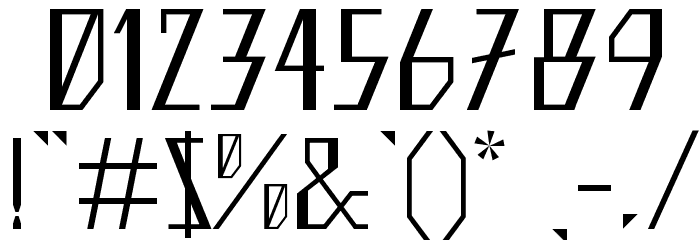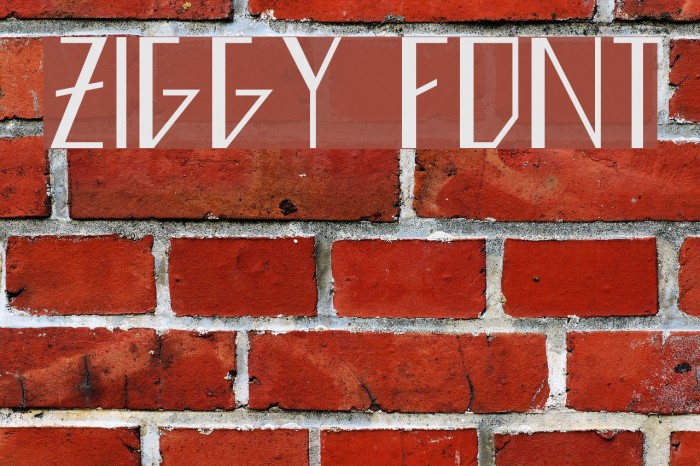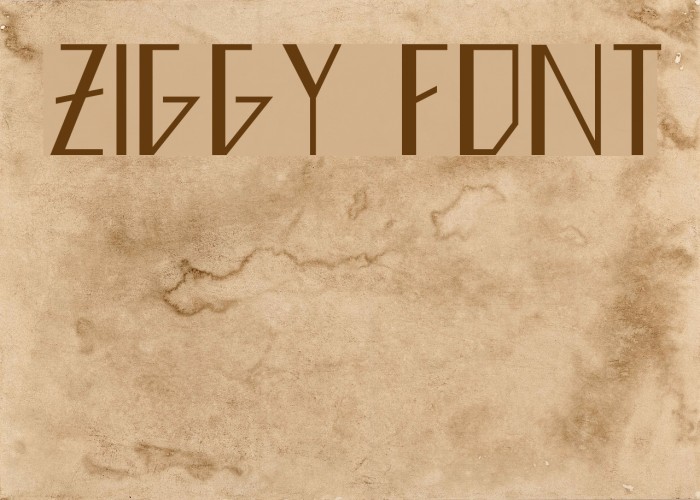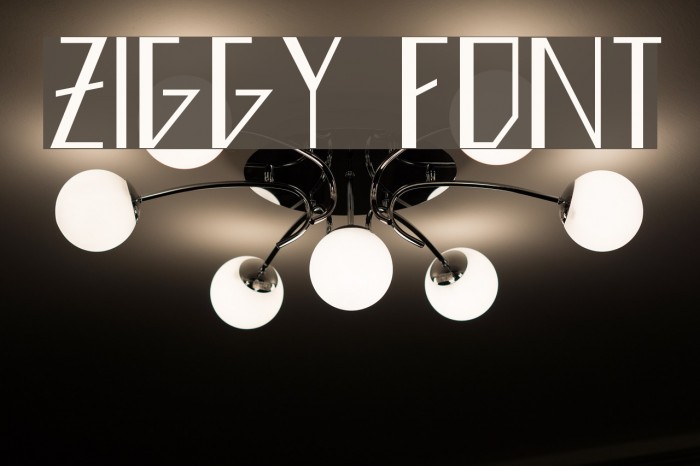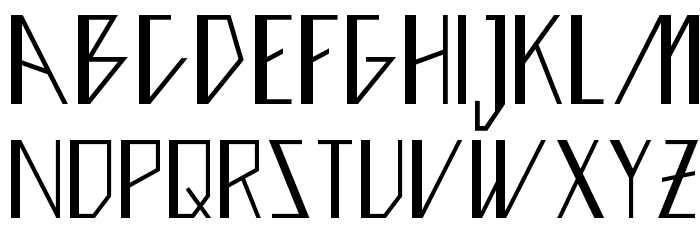
Ziggy Font
This font features a unique, angular design with sharp edges and geometric forms. The uppercase letters are characterized by their tall, narrow shapes, giving a sense of height and elegance. The lowercase letters maintain the angular theme, providing a cohesive look across all characters. Numbers are similarly styled, with distinct, bold lines that ensure readability. Special characters are creatively integrated, maintaining the geometric aesthetic. This font's distinct style makes it stand out, offering a modern and edgy appearance suitable for various design applications.
A geometric, angular font with sharp edges and a modern aesthetic.